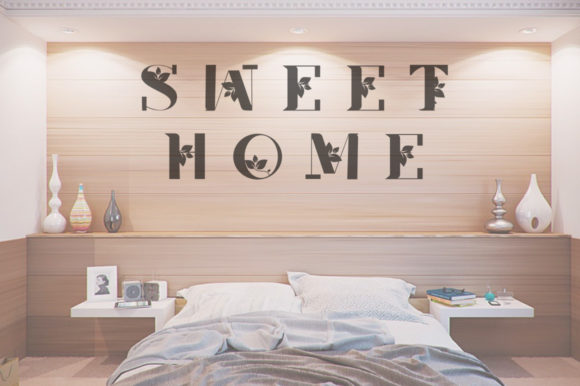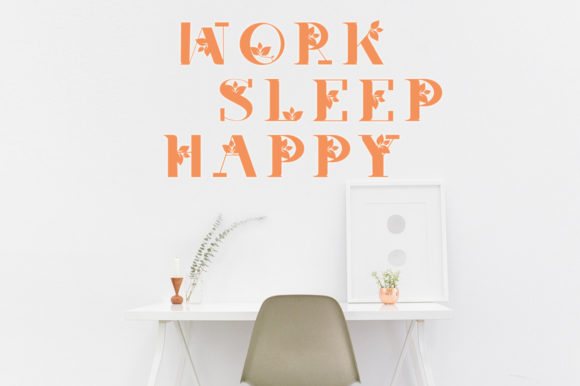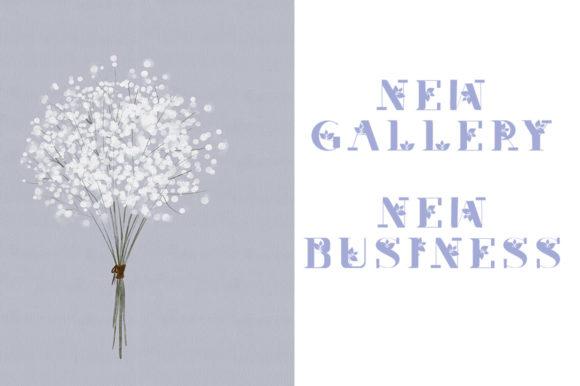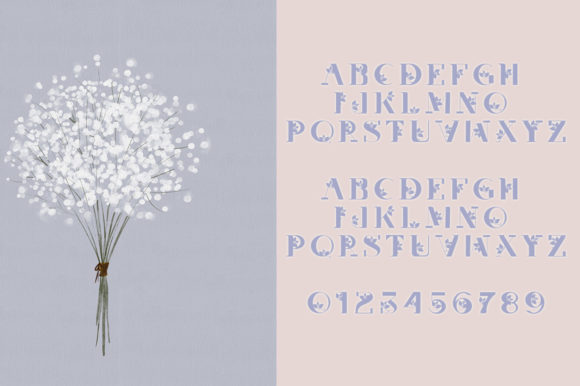
Unlock the Beauty of Your Designs with Beauty Lemon Font
| 👤 Author | Mr.Soon Design |
Meet Beauty Lemon Font, a stunning decorative font that combines solemn serif characters with a lovely floral accent to each letter. Its unique blend of classic elegance and playful charm makes it the perfect addition to any design project. Whether you’re creating a wedding invitation, a branding campaign, or a social media post, Beauty Lemon Font is sure to bring a touch of sophistication and whimsy to your work.
Beauty Lemon Font Key Features
- Font Family: Beauty Lemon Font is a unique, hand-drawn font designed to evoke a sense of elegance and sophistication.
- Unique Characteristics: The font features a distinctive, hand-drawn style with subtle imperfections, giving it a personal and exclusive feel.
Beauty Lemon Font Review
Overall, I think Beauty Lemon Font is a visually appealing choice for designers looking for a fun and modern aesthetic.
- The font’s unique, citrus-inspired design is sure to grab attention and add a touch of personality to any project.
- The varied line widths and expressive letterforms create a sense of energy and movement, making it perfect for headings and titles.
- The font’s high contrast between thick and thin strokes makes it easy to read, even at smaller font sizes.
- The font’s playfulness may not be suitable for all types of projects, particularly those requiring a more serious or formal tone.
- The lack of a corresponding font family with a more subdued style may limit its versatility in certain design scenarios.
- The font’s overall design may not be ideal for text-heavy content, as the varying line widths can make it difficult to read large blocks of text.
In conclusion, Beauty Lemon Font is a great choice for designers looking to add a pop of fun and personality to their projects. While it may not be suitable for all types of designs, its unique aesthetic and high readability make it a valuable addition to any font collection.
Beauty Lemon Font is a versatile font that can be used in a variety of contexts, including:
- Beauty and wellness branding
- Food and beverage packaging
- Health and fitness marketing
For optimal results, use Beauty Lemon Font in conjunction with bright and cheerful colors to create a visually appealing design.